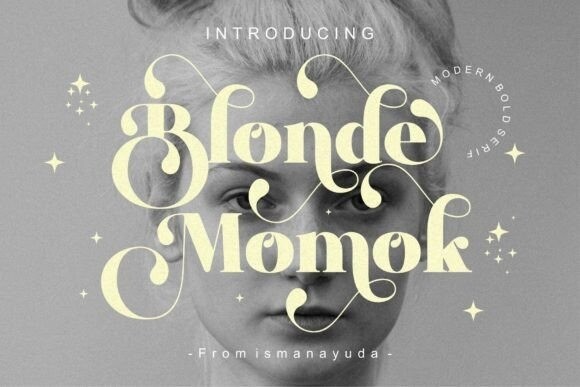
Blonde Momok Font
Blonde Momok is a stylish and retro serif font that is a perfect blend of old-school charm and contemporary design. Its sharp and angular letterforms are full of character and attitude, while its clean lines and balanced proportions create a refined and polished look. Ideal for designs that require a touch of vintage sophistication with a modern twist.